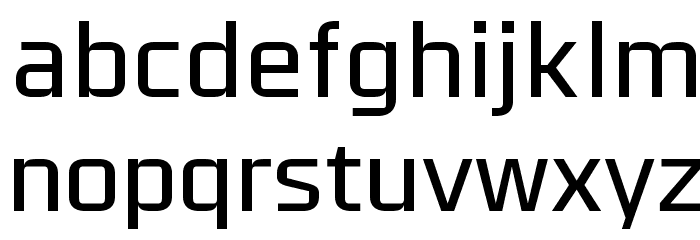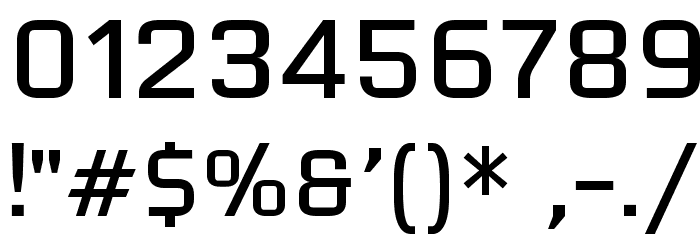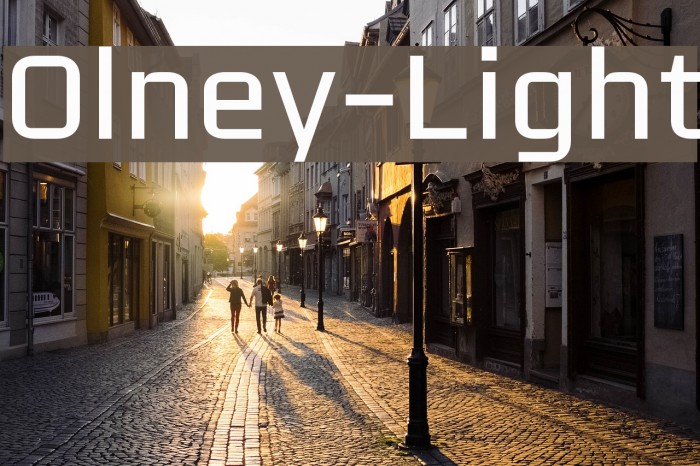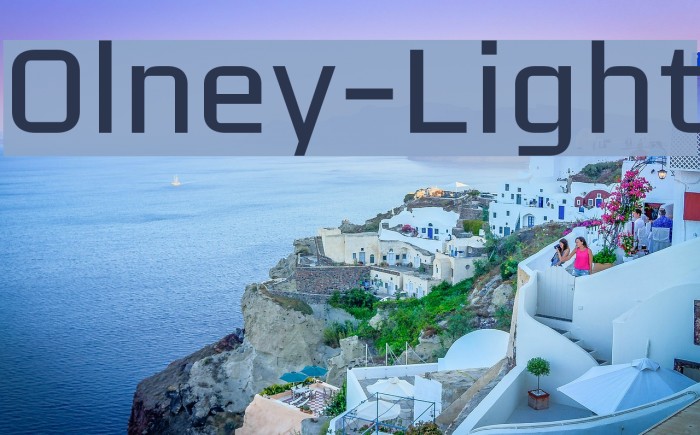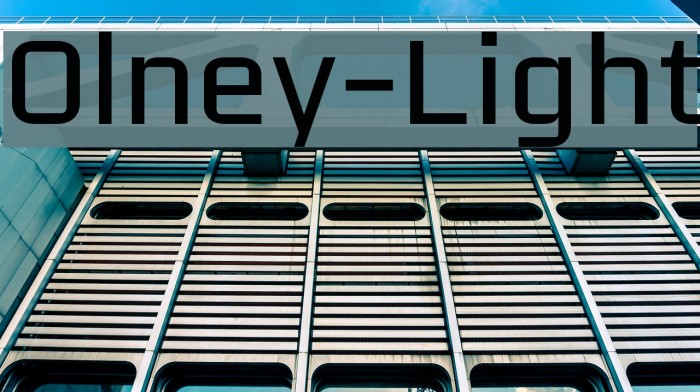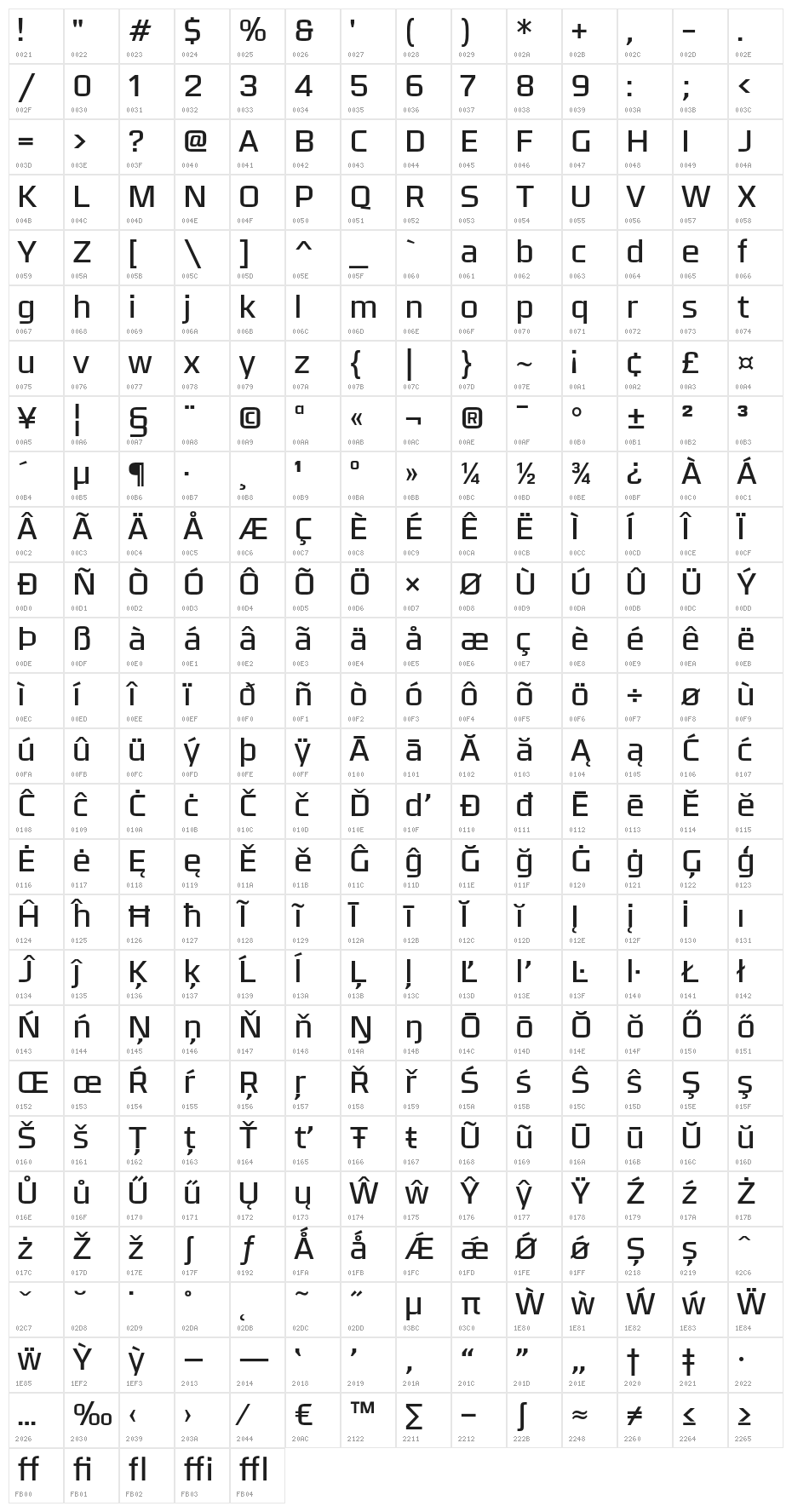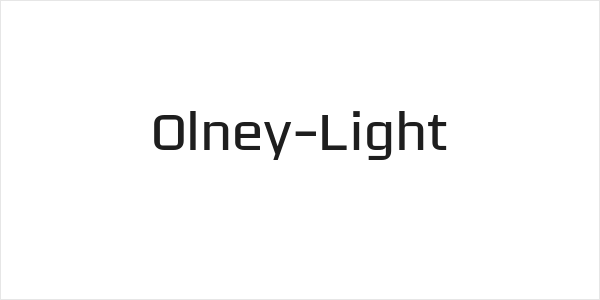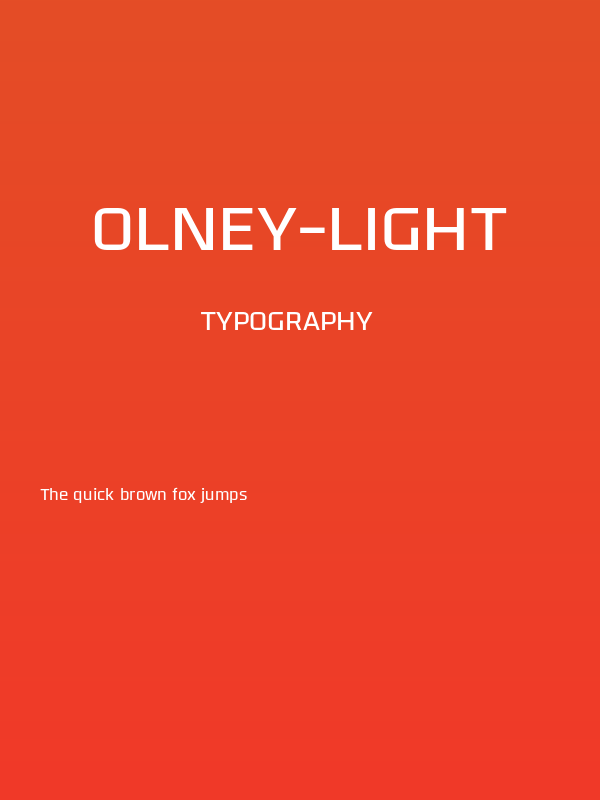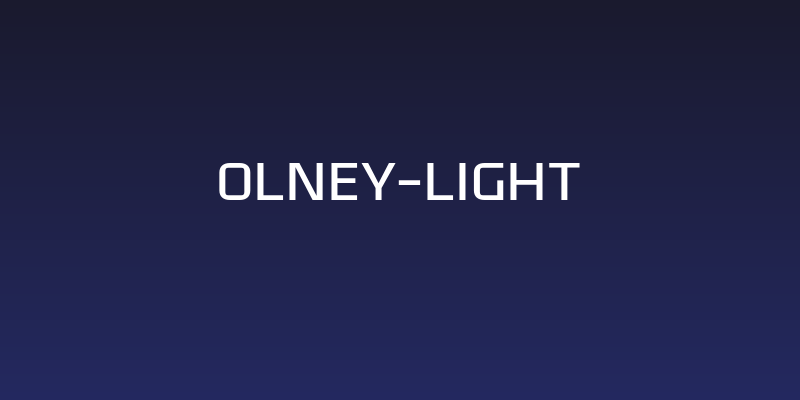
Olney-Light Font
This font features a clean and modern sans-serif design with a geometric structure. The characters are well-balanced, offering a uniform appearance that enhances readability. The uppercase letters are bold and assertive, while the lowercase letters maintain a consistent flow with slightly rounded edges. The numerals are clear and distinct, making them suitable for both display and text purposes. Special characters are designed with precision, ensuring they complement the overall aesthetic. The font's simplicity and clarity make it versatile for various design applications.
A modern, geometric sans-serif font with clean lines and balanced characters.
- Proposed Projects: Ideal for branding, web design, advertising, and editorial layouts where clarity and modernity are essential.